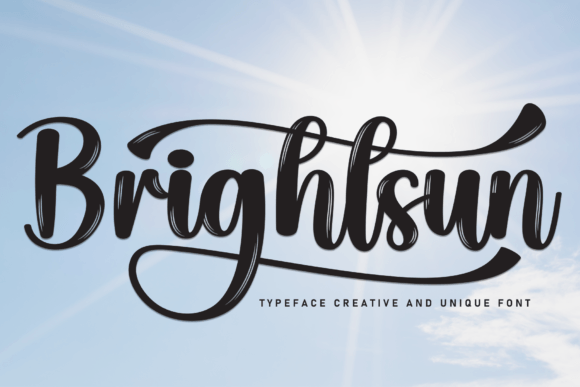
**Brightsun: The Handcrafted Masterpiece That Unveils Your Artistic Vision**
Brightsun is more than just a font; it's a gateway to a world of creative expression. This elegantly handwritten font is meticulously crafted to elevate your typographic art to new heights. With its effortless flow and captivating curves, Brightsun dances across the page, leaving a trail of visual splendor in its wake.
**A Symphony of Elegance and Modernity**
Brightsun seamlessly blends the charm of classic calligraphy with a refreshing contemporary twist. It's a font that transcends time, combining the best of the past with the vibrancy of the present. Brightsun's delicate strokes and graceful serifs evoke a sense of timeless sophistication, while its open counters and airy feel lend it a distinctly modern edge.
**Ignite Your Imagination with Limitless Possibilities**
Brightsun's versatility is as boundless as your imagination. Whether you're crafting stunning logos, designing eye-catching social media graphics, or creating enchanting invitations, Brightsun effortlessly adapts to your vision. Its elegant lines add a touch of sophistication to wedding invitations and branding materials, while its playful charm enlivens posters and flyers.
**Fall in Love with the Beauty of Brightsun**
Brightsun is not just a font; it's an experience. As you trace its graceful curves and witness the magic it weaves on your designs, you'll find yourself falling head over heels in love with its beauty. Brightsun is more than just a tool; it's an extension of your creative essence, allowing you to express yourself in ways you never thought possible.
**Unleash the Brilliance Within**
With Brightsun at your fingertips, you'll discover a newfound confidence in your design abilities. This font has the power to transform ordinary words into extraordinary works of art. It's the perfect companion for creative professionals, artists, and anyone who seeks to add a touch of elegance and charm to their projects.
**Embark on a Creative Journey with Brightsun**
Don't settle for ordinary fonts that blend into the background. Choose Brightsun, a font that commands attention and leaves a lasting impression. It's a font that will inspire you, challenge you, and ultimately help you create designs that truly stand out from the crowd.